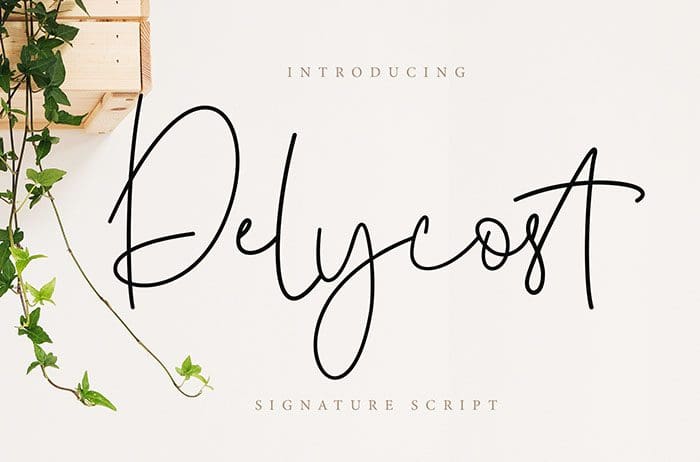
Delycost Script Font
Delycost Script Font is fashionable and super-chilled with some sexy stylish. Perfect for branding projects, logo, wedding designs, and more. Thanks to Creatype Studio for sharing this font! Take a look at this portfolio for more of his stunning fonts.